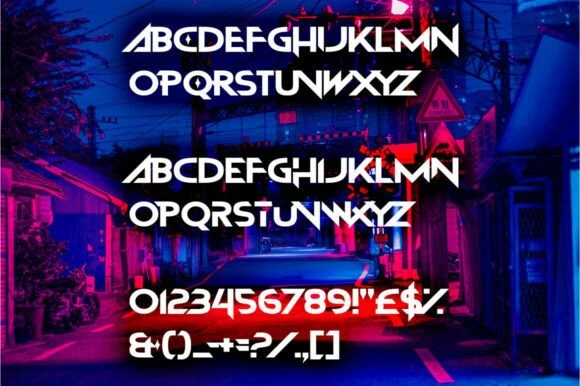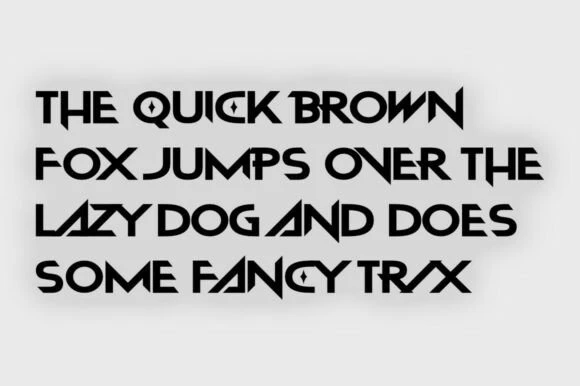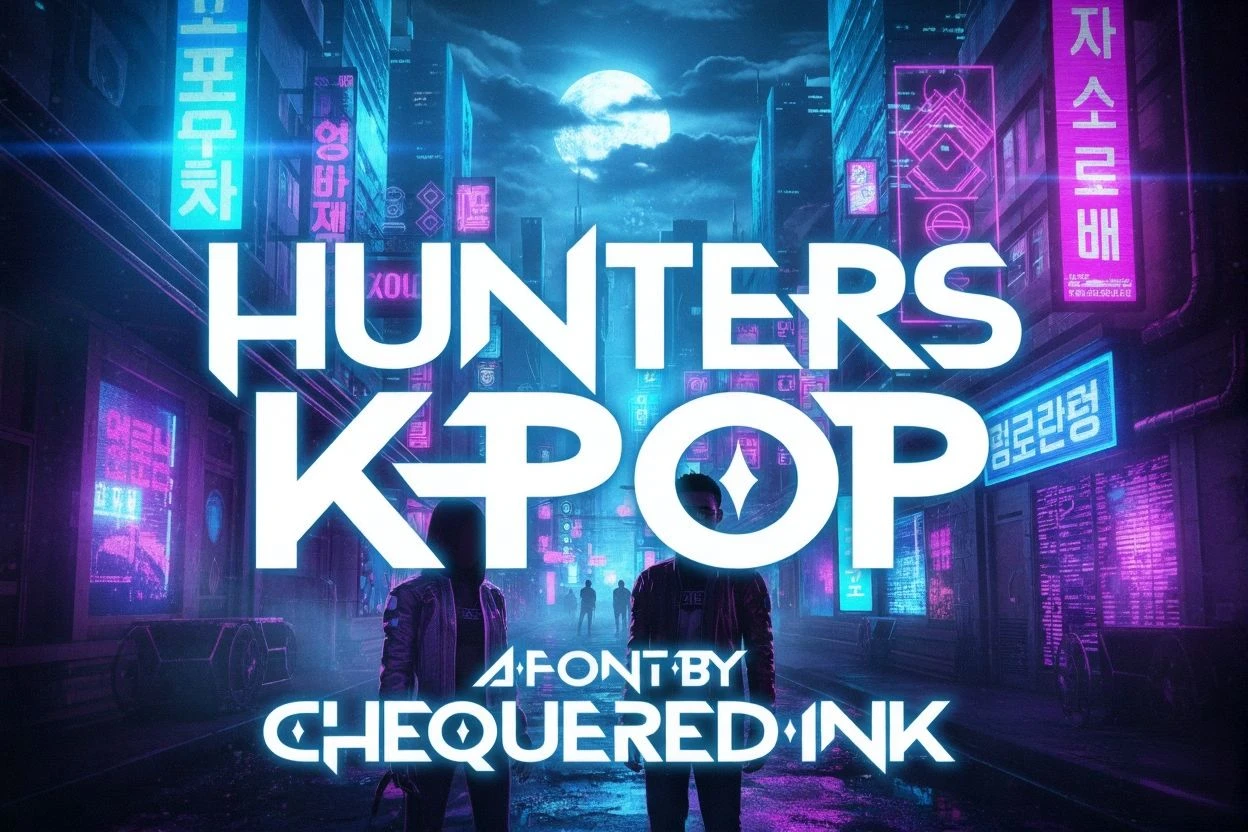
Step into the world of rhythm and neon with Hunters K-Pop Font, a bold and futuristic display typeface inspired by Korean pop culture and electronic music. Designed with sharp lines, geometric shapes, and dynamic energy, this font captures the aesthetic of K-pop, techno, and cyberpunk design.
Ideal for album covers, posters, gaming titles, digital branding, streaming overlays, and social media graphics, Hunters K-Pop adds modern attitude and visual impact to every project. Its sleek, high-contrast style creates a vibrant futuristic atmosphere that stands out both in print and on screen.
Light up your designs with the electrifying style of Hunters K-Pop Font — where modern design meets K-pop culture.